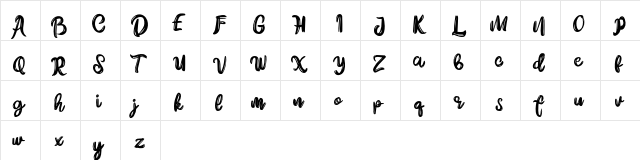
DareDarling FREE Regular
Design Context for DareDarling FREE Typeface
DareDarling FREE is a composed and adaptable typeface that performs quietly and consistently across a wide range of design contexts.